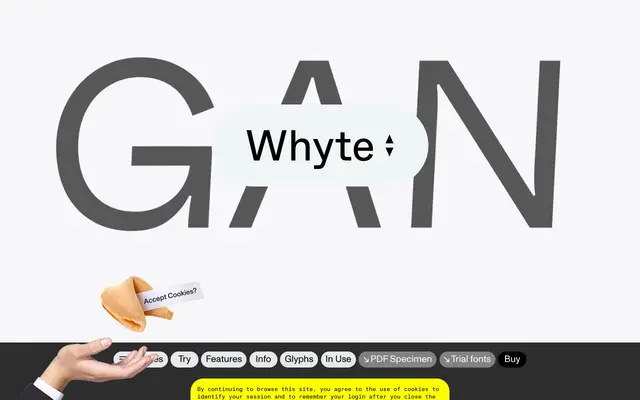
ABC Whyte
Dinamo Typefaces · Dinamo (Fabian Harb & Johannes Breyer, with Erkin Karamemet & Fabiola Mejia)
A contemporary grotesque in six subfamilies including a variable Inktrap axis, mono and semi-mono cuts, across Latin, Greek, Cyrillic, Hangul and Hebrew.
A contemporary grotesque by Dinamo (Fabian Harb and Johannes Breyer, with Erkin Karamemet and Fabiola Mejia) with idiosyncrasies and character. The system splits into Whyte (smooth and sharp transitions) and Whyte Inktrap (ink traps at joints), and via variable font technology users can deepen or shorten the ink traps for the first time, sliding from deep wells to shorter cuts. Six subfamilies cover Whyte, Inktrap, Mono, Mono Inktrap, Semi-Mono and Semi-Mono Inktrap, each with ten weights from Thin to Super and matching italics. Latin, Greek, Cyrillic, Hangul and Hebrew are supported, with Hangul, Japanese and Chinese pairings recommended.
Dinamo describe Whyte as a contemporary grotesque typeface filled with idiosyncrasies and character. Whyte has smooth and sharp transitions; Whyte Inktrap has ink traps at its joints, with variable-axis control to deepen or shorten them.